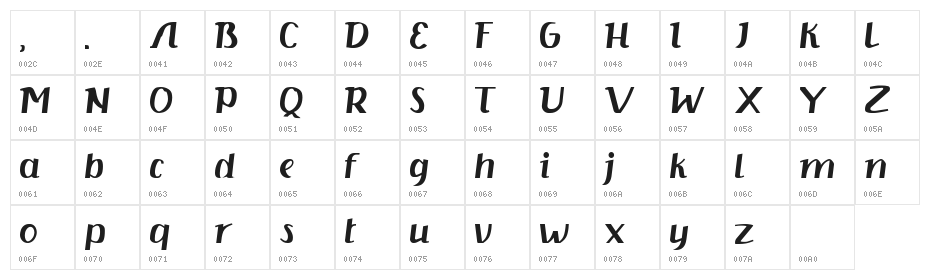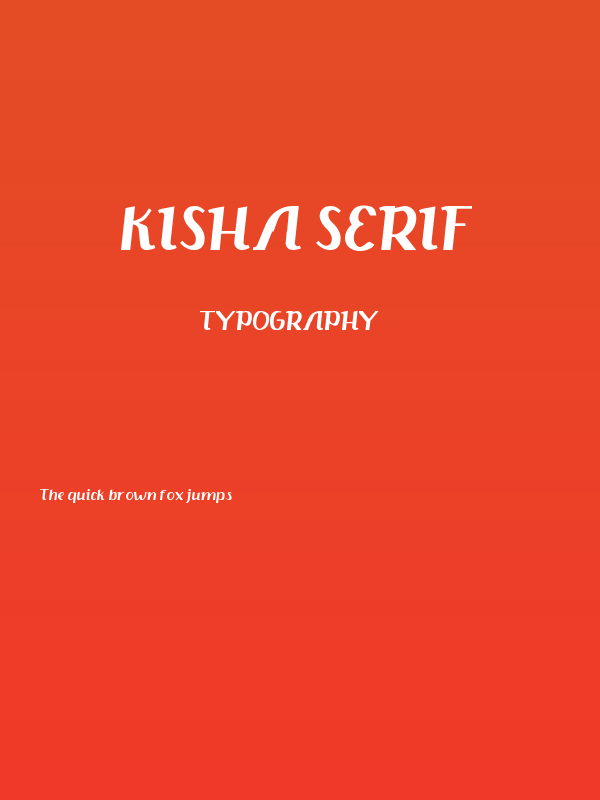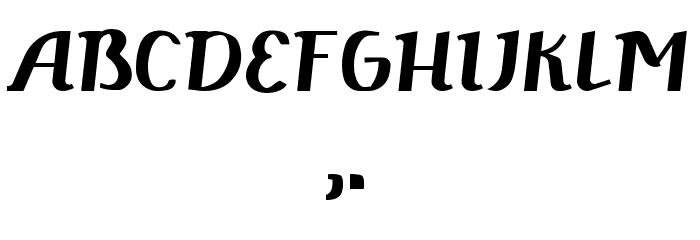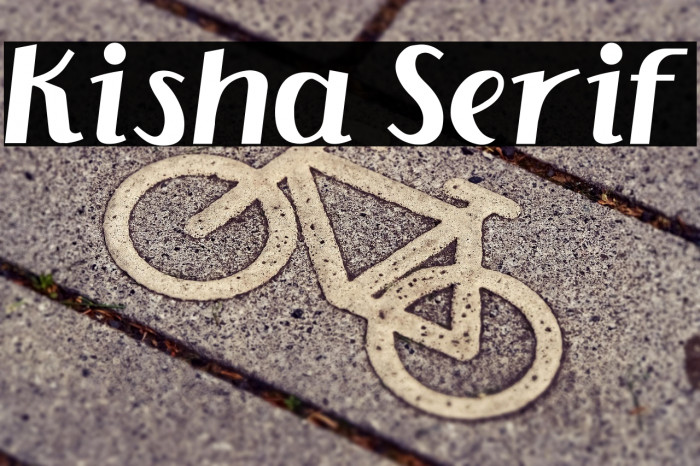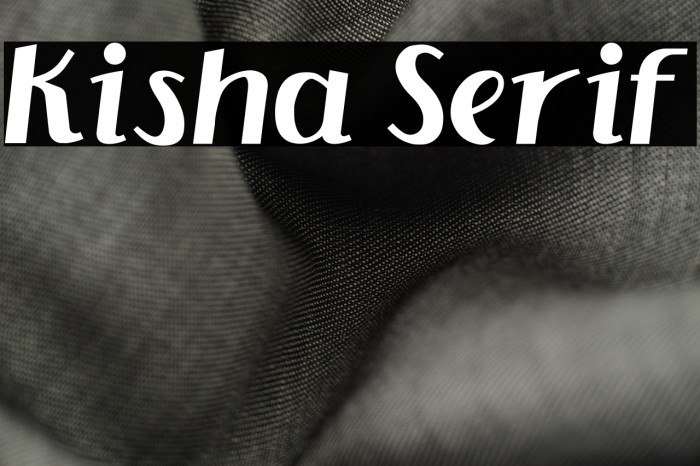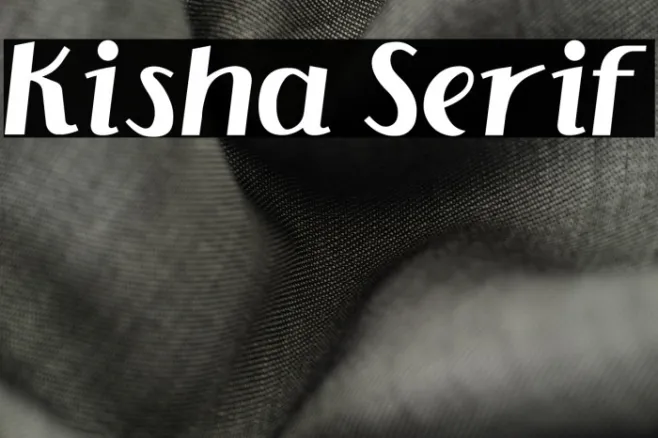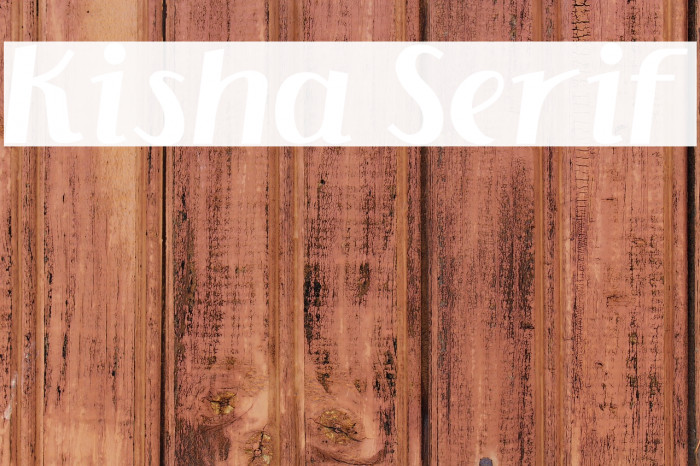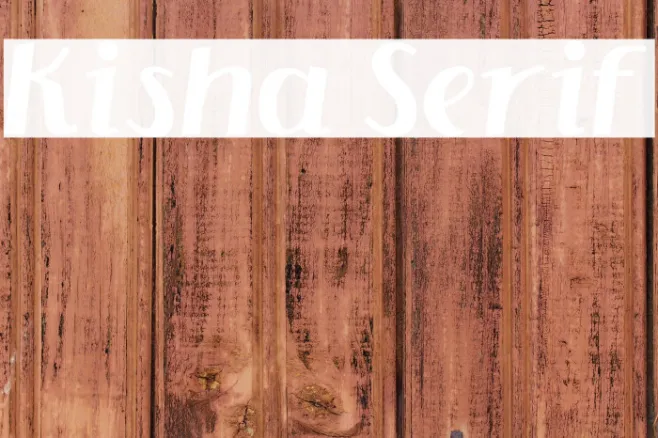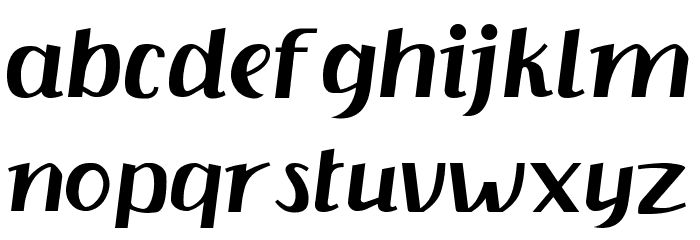
Kisha Serif Font
Kisha Serif Description
This font features a dynamic and elegant serif style with a slight slant, giving it a sophisticated and modern appearance. The characters are well-defined with a moderate contrast between thick and thin strokes, adding to its readability and visual appeal. The uppercase letters are bold and commanding, while the lowercase letters maintain a graceful flow. The font's design is versatile, suitable for both formal and creative applications, making it ideal for branding, editorial design, and advertising. Its unique character shapes and balanced proportions contribute to its distinctive look, ensuring it stands out in any project.